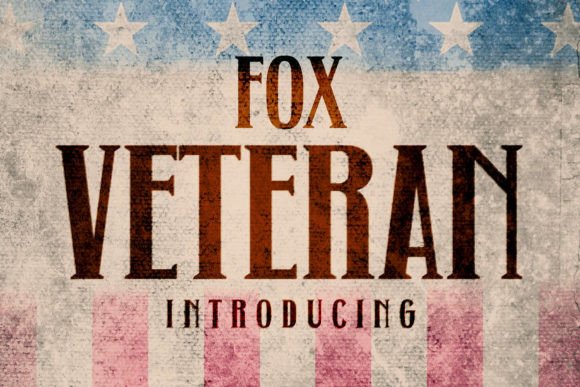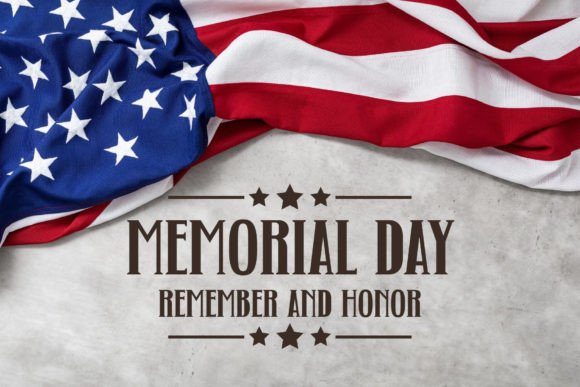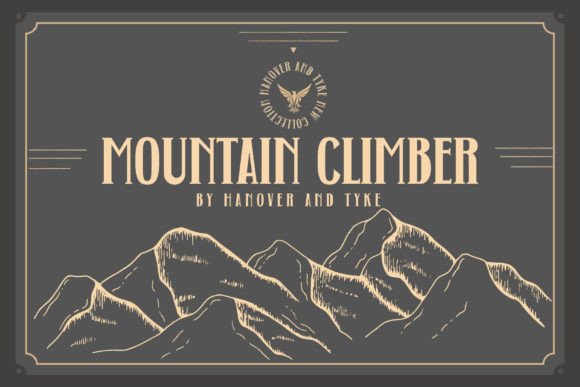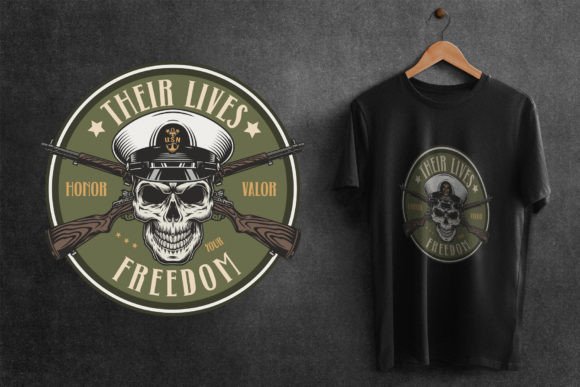
Fox Veteran Font: A Patriotic Slab Serif for Vintage Designs
About the Fox Veteran Font
The Fox Veteran Font offers a perfect balance of form and function for your design needs. Fox Veteran is a vintage and cool slab serif font. this font is perfect for publications, logos, business cards, or printed on t-shirts, this font will look outstanding on everything, no matter the topic. This font will be an incredible asset to your fonts’ library, as it has the potential to elevate any creation.
Fox Veteran’s strong slab serifs and vintage feel make it ideal for headlines, logos, and short-form text on packaging or posters. Its boldness commands attention, making it perfect for projects needing a strong visual impact. However, its weight and x-height aren’t suited to body text or lengthy paragraphs; readability suffers at smaller sizes. Avoid using it in user interfaces where legibility is paramount.
The font projects a confident, slightly rebellious personality. To complement this, pair Fox Veteran with a clean sans-serif like Montserrat for body copy or a more playful script like Pacifico for secondary elements, depending on the desired balance between vintage and contemporary. A geometric sans-serif could also work well for creating contrast.
Consider Fox Veteran for brands emphasizing heritage, craftsmanship, or a retro aesthetic. Think whiskey labels, motorcycle apparel, or coffee shops with a vintage vibe. The font’s character will successfully convey a sense of timelessness and quality.
Fox Veteran Font Usage Examples
Fox Veteran Font Example